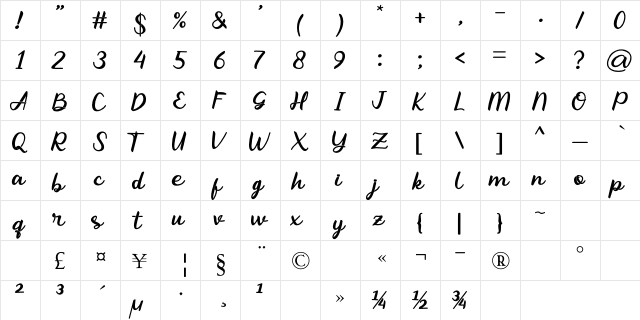
Abhayas Regular
Design Context for Abhayas Typeface
Abhayas is a composed and adaptable typeface that performs quietly and consistently across a wide range of design contexts.